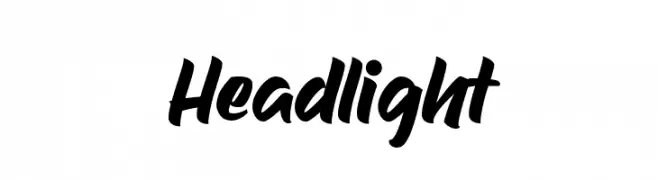
A bold, flowing script font with interconnected characters and a playful style.
A bold, Gothic-inspired font with sharp, angular edges and decorative serifs.
A bold, modern font with thick strokes and rounded edges, perfect for impactful designs.
A decorative illustrated font featuring cangaceiro figures for each character.
A semaphore flag-inspired font with figures holding flags to represent characters.
A festive font with letters held by cartoon Santa figures, perfect for holiday themes.
An artistic, carved-style font with elongated, narrow letterforms.
A bold, energetic script font with a dynamic, handwritten style.
A graceful, cursive script font with elegant, flowing letters.
A bold, graffiti-style font with a dripping effect, perfect for edgy designs.